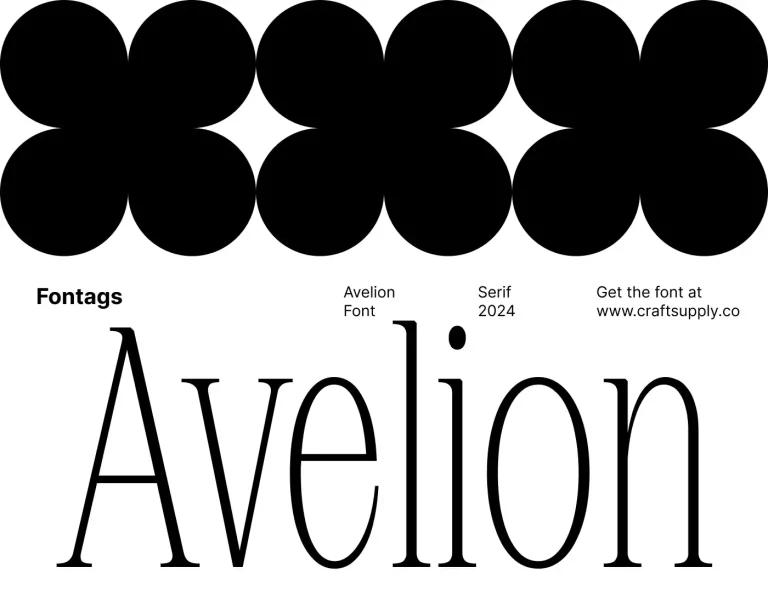
Avelion
Avelion serif, an epitome of elegance, boasts low-contrast strokes and condensed dimensions, effortlessly creating a harmonious aesthetic on any medium. This font’s timeless beauty lies in its ability to strike a perfect balance between delicacy and condensed form, ensuring an enchanting…
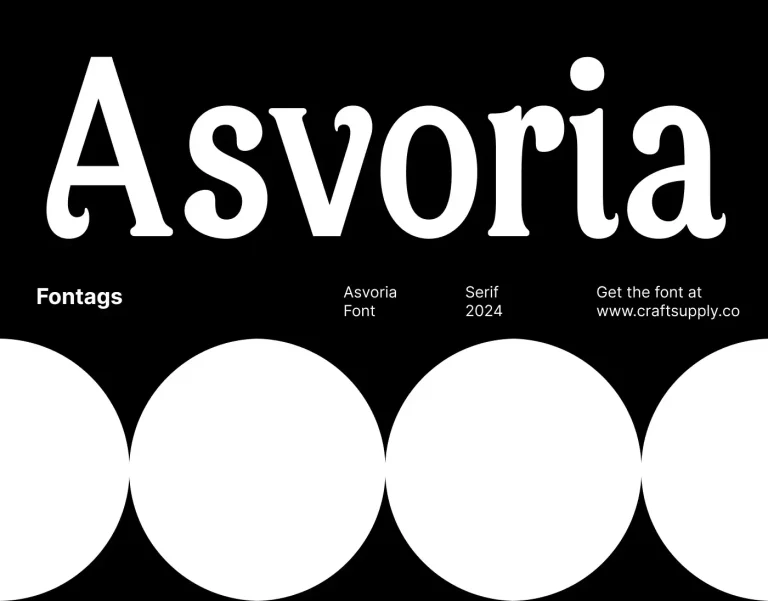
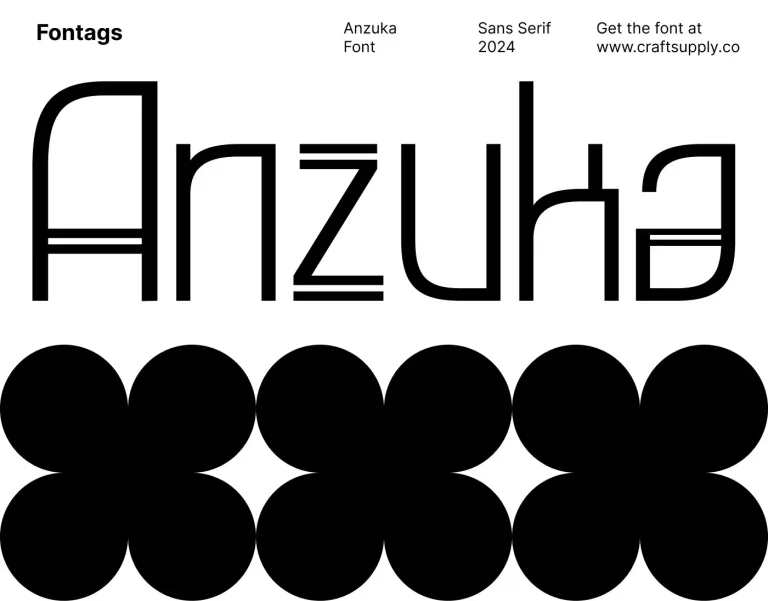Asvoria
Asvoria, a captivating serif font, introduces a new era of style with its meticulously crafted and stylishly embellished serifs. The serifs in Asvoria exhibit a unique flow, adding a touch of elegance that seamlessly integrates into any design, be it print or…
Anzuka
Anzuka, a testament to refined aesthetics, draws inspiration from the Art Deco era, transforming its timeless elegance into a contemporary masterpiece. Incorporating modern sans serif vibes while retaining its classic roots, Anzuka seamlessly blends the best of both worlds, ensuring a font…
Ansela
Ansela, an embodiment of sleek sophistication, blends modern sans serif aesthetics with minimalist design, creating a font that exudes timeless elegance. With clean lines and simple forms, Ansela transforms simplicity into a design marvel, making it the perfect choice for those who…
Alacus
Alacus, a mesmerizing display font, draws inspiration from mecha aesthetics, unleashing a futuristic vibe that transcends conventional typographic boundaries. Its geometric precision and bold lines reflect a seamless fusion of modern design and advanced technology. This font seamlessly blends sleek design elements…
Akalime
Akalime introduces a sleek monoline sans serif design, establishing a seamless and contemporary visual appeal that aligns with modern design sensibilities. This font goes beyond the ordinary, unveiling futuristic nuances that elevate it to a cutting-edge choice for those seeking a glimpse…
Adfile
Adfile, a font that redefines fun, infuses every character with a playful spirit, making it the go-to choice for vibrant display designs. Breaking away from the ordinary, Adfile’s square design adds a touch of modernity, creating a dynamic visual impact that’s impossible…
Acelon
Acelon, a condensed serif font, epitomizes streamlined sophistication, ensuring a powerful visual impact that seamlessly aligns with corporate aesthetics. With its commanding height and precise strokes, Acelon captivates attention, making it the perfect choice for corporate identities seeking a strong visual presence.
Acelina
Acelina, a monoline sans-serif font, exudes a timeless simplicity, perfect for those seeking a harmonious and clean aesthetic. In the world of fonts, Acelina stands out with its meticulous precision, each character crafted with care to maintain a consistent and clean appearance.…
Abeleo
Abeleo, the epitome of funkiness in fonts, breaks free with its quirky design, ensuring a vibrant presence that sparks creativity. Abeleo’s inverted contrast adds an irresistible visual appeal, making it a captivating choice for any display where uniqueness matters.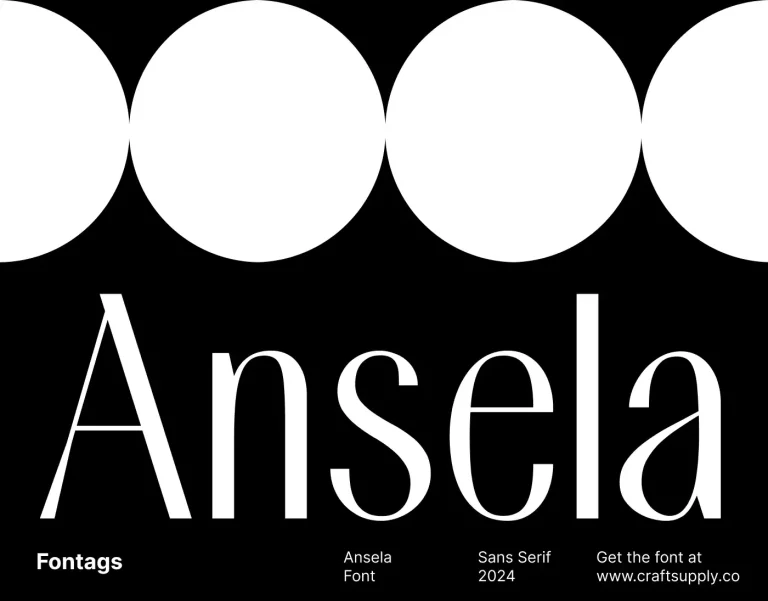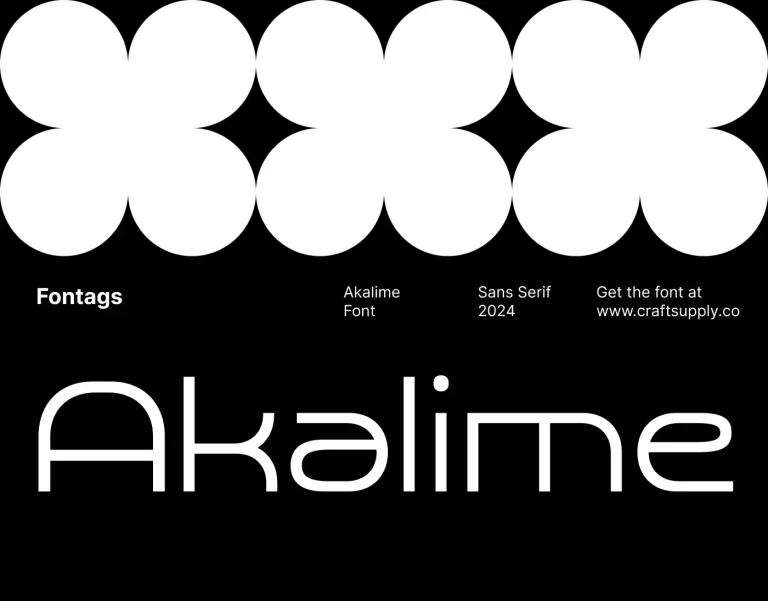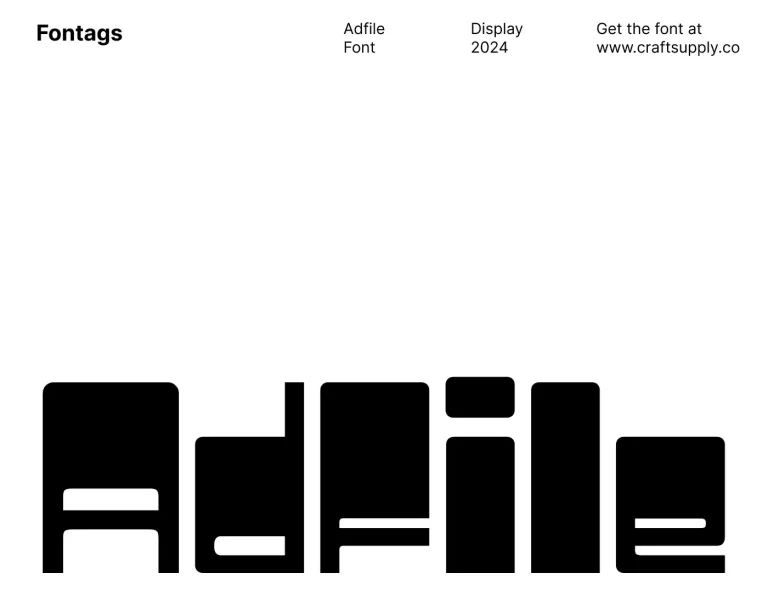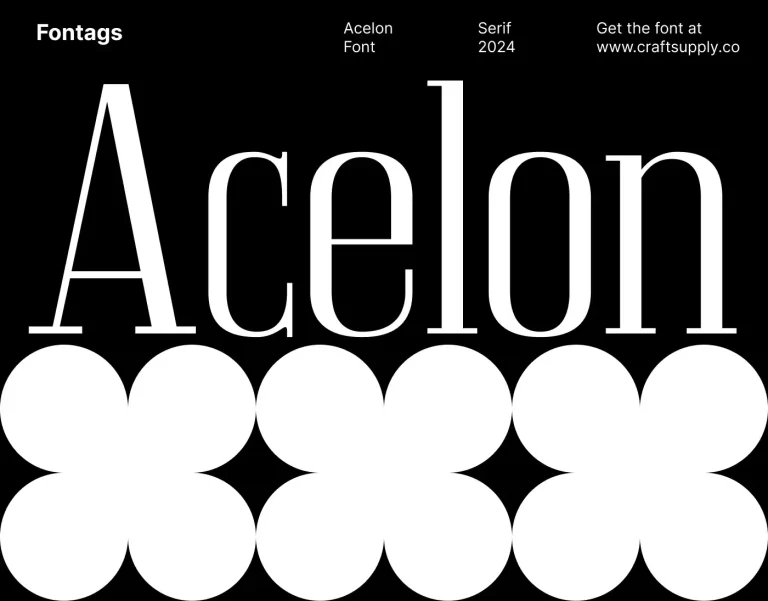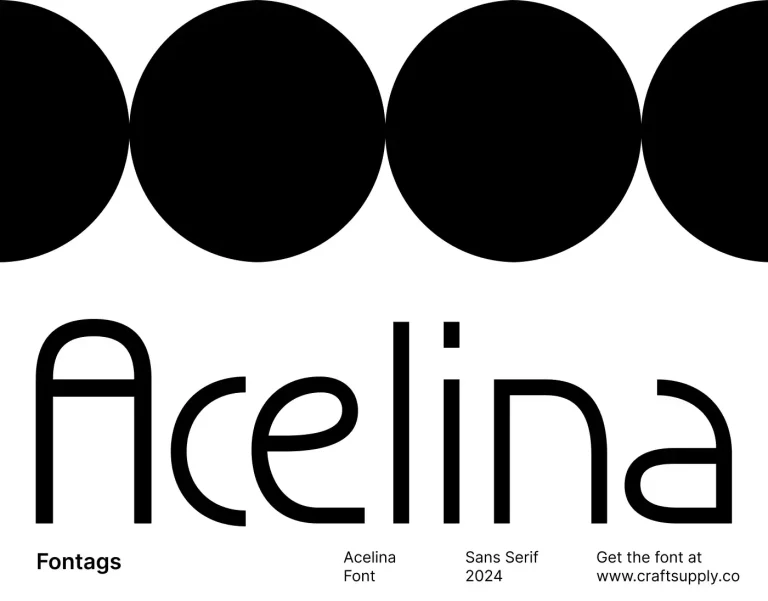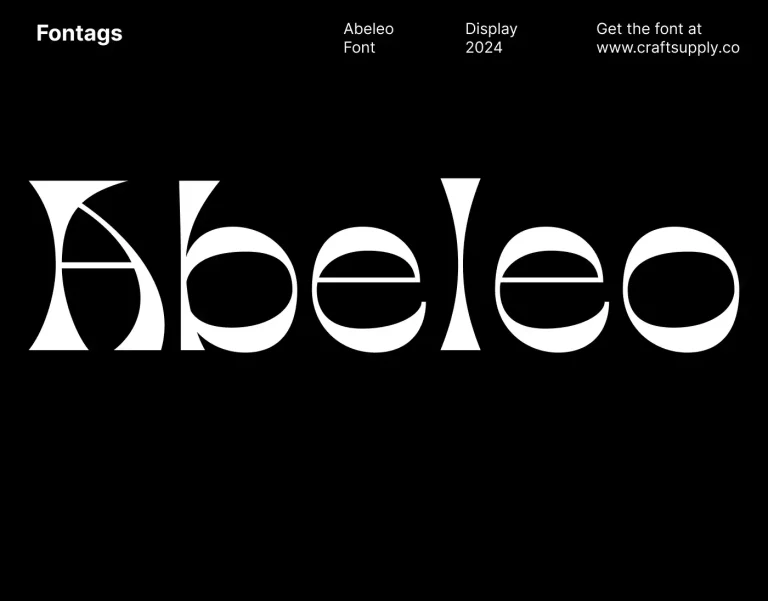